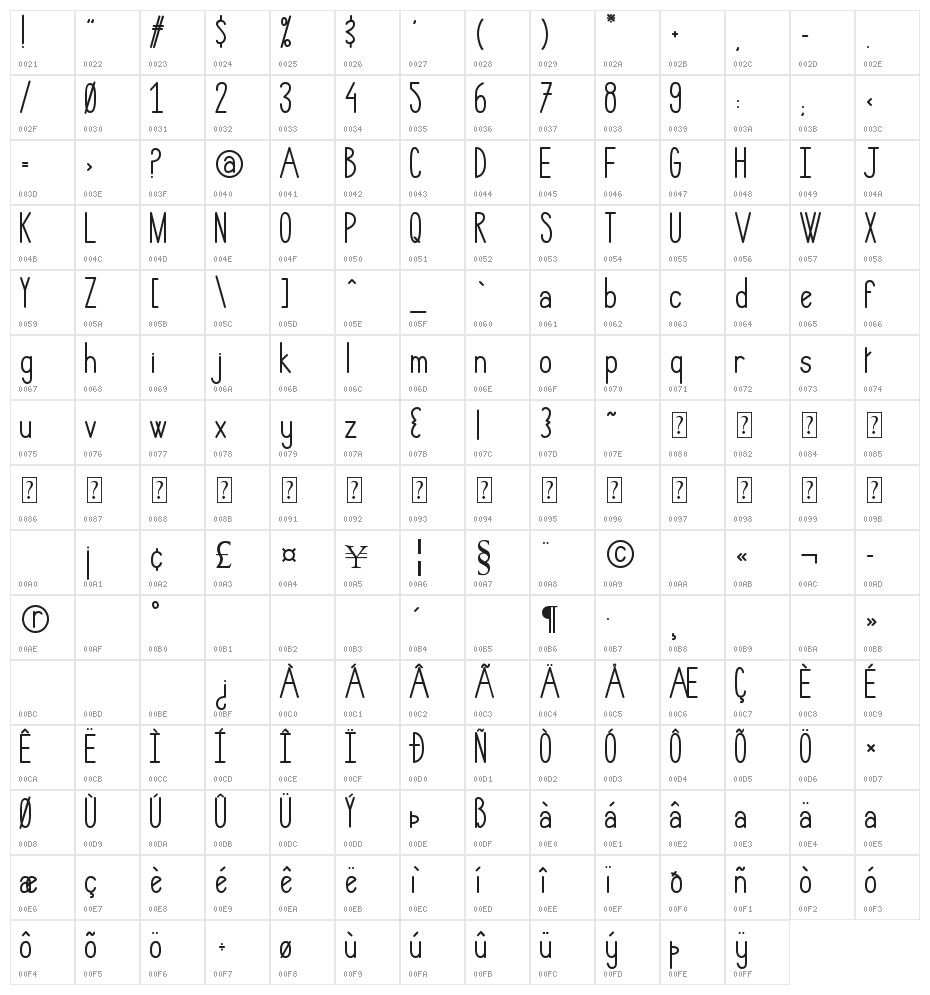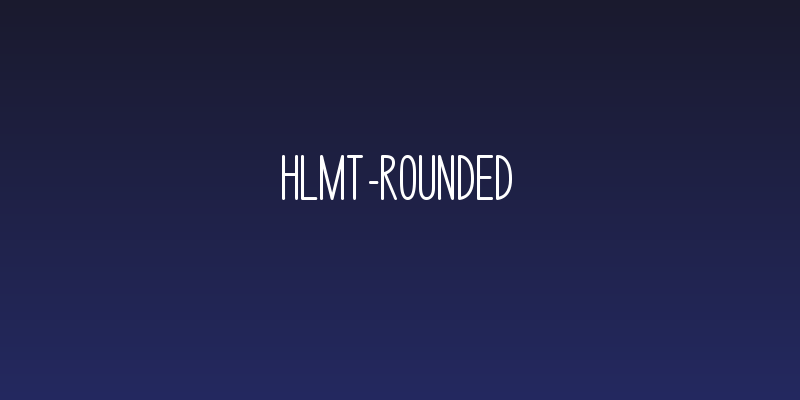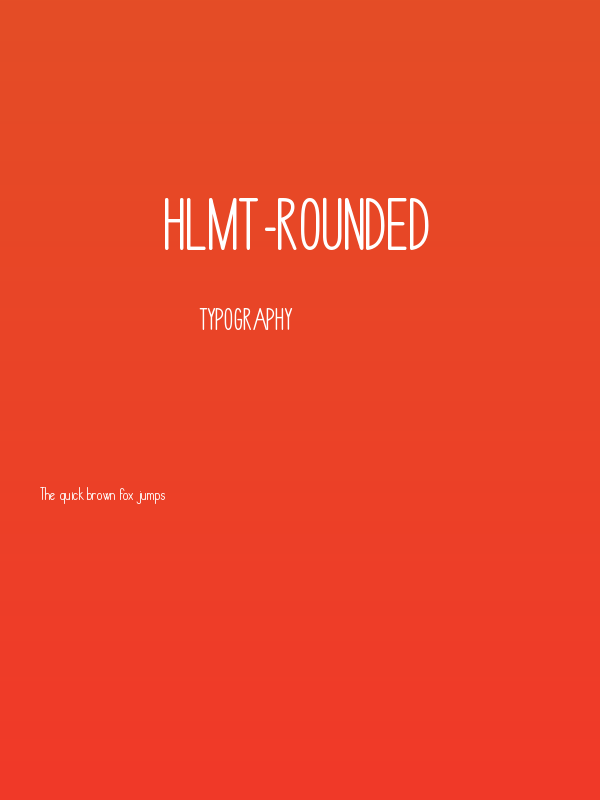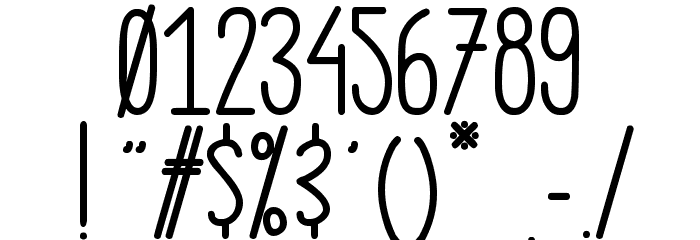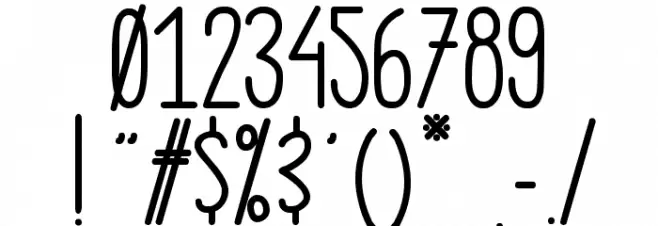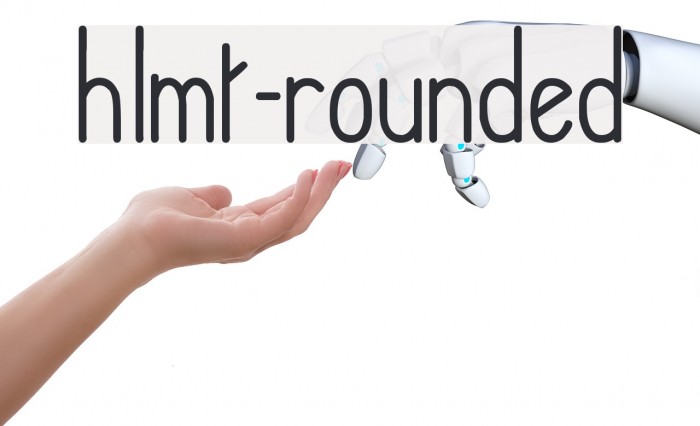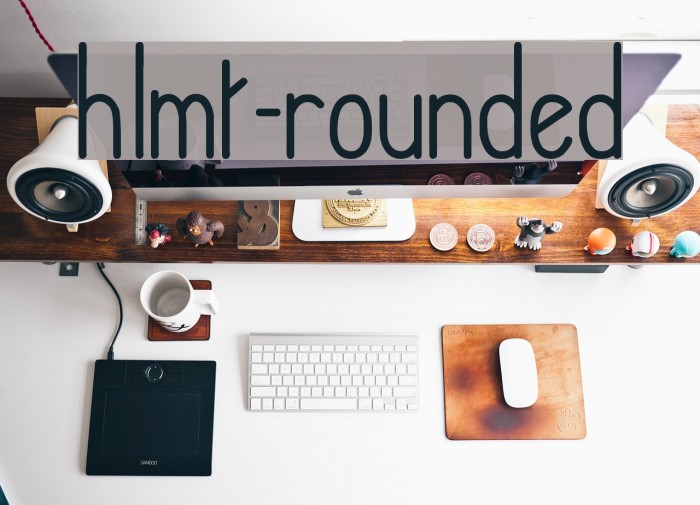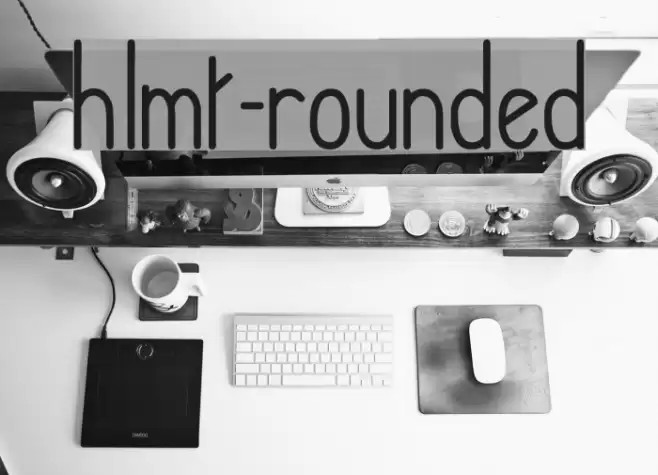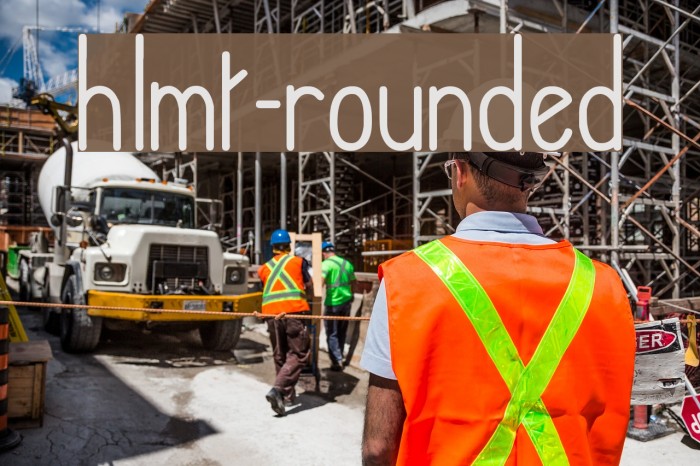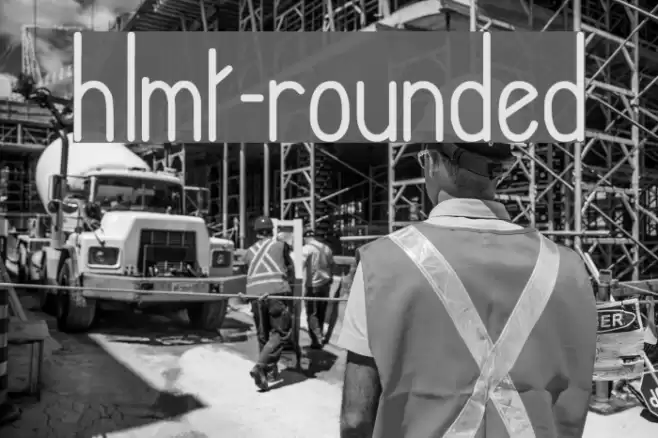
hlmt-rounded Font
hlmt-rounded Description
This font features a clean and modern design with rounded edges, giving it a friendly and approachable appearance. The characters are tall and narrow, contributing to a sleek and streamlined look. The uppercase letters maintain a consistent height, while the lowercase letters are slightly shorter, providing a balanced visual harmony. The numerals are clear and easy to read, with a uniform width that matches the letters. Special characters are well-integrated, maintaining the overall aesthetic. This font's simplicity and rounded forms make it versatile for various design applications.